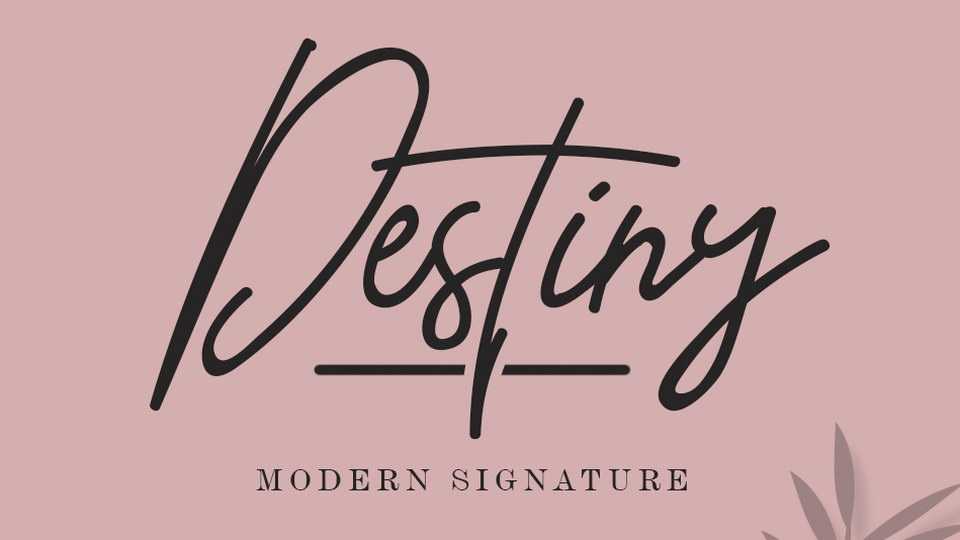
Download Destiny font, a stylish handwritten script with a natural flow. Destiny script is perfect for personal branding, signature style logos, watermarks, social media, notes, quotes and more.
Designer: Arendx Studio